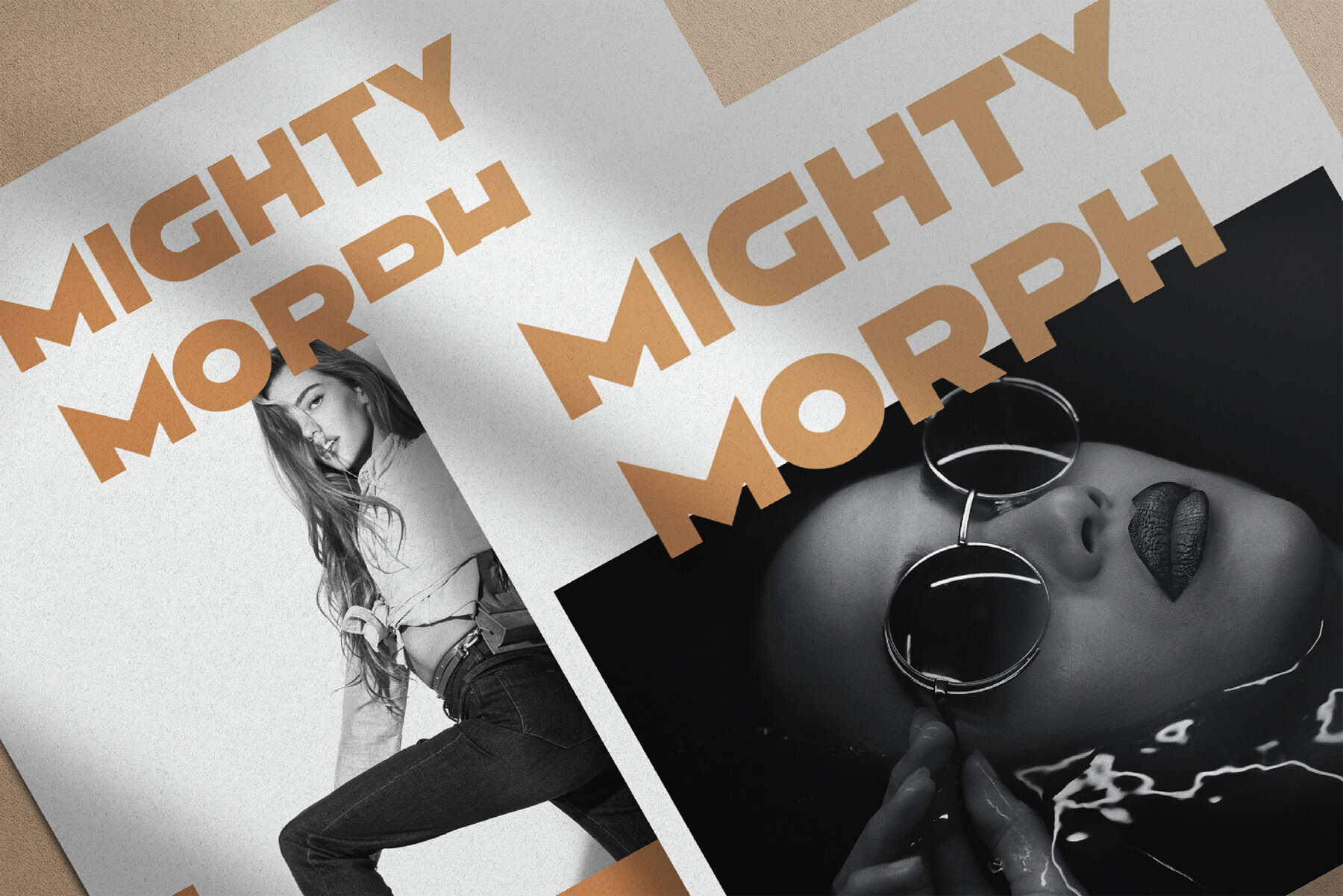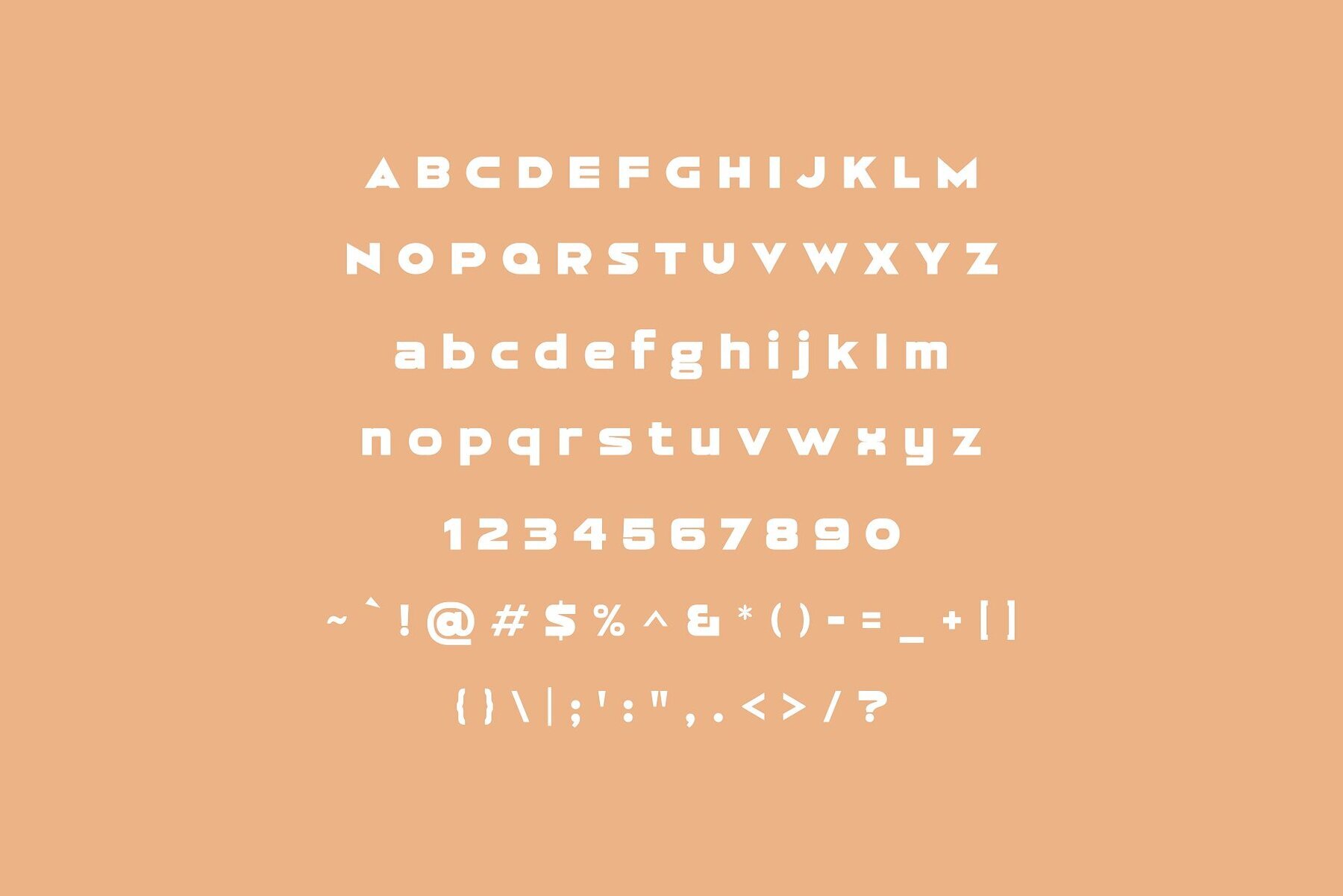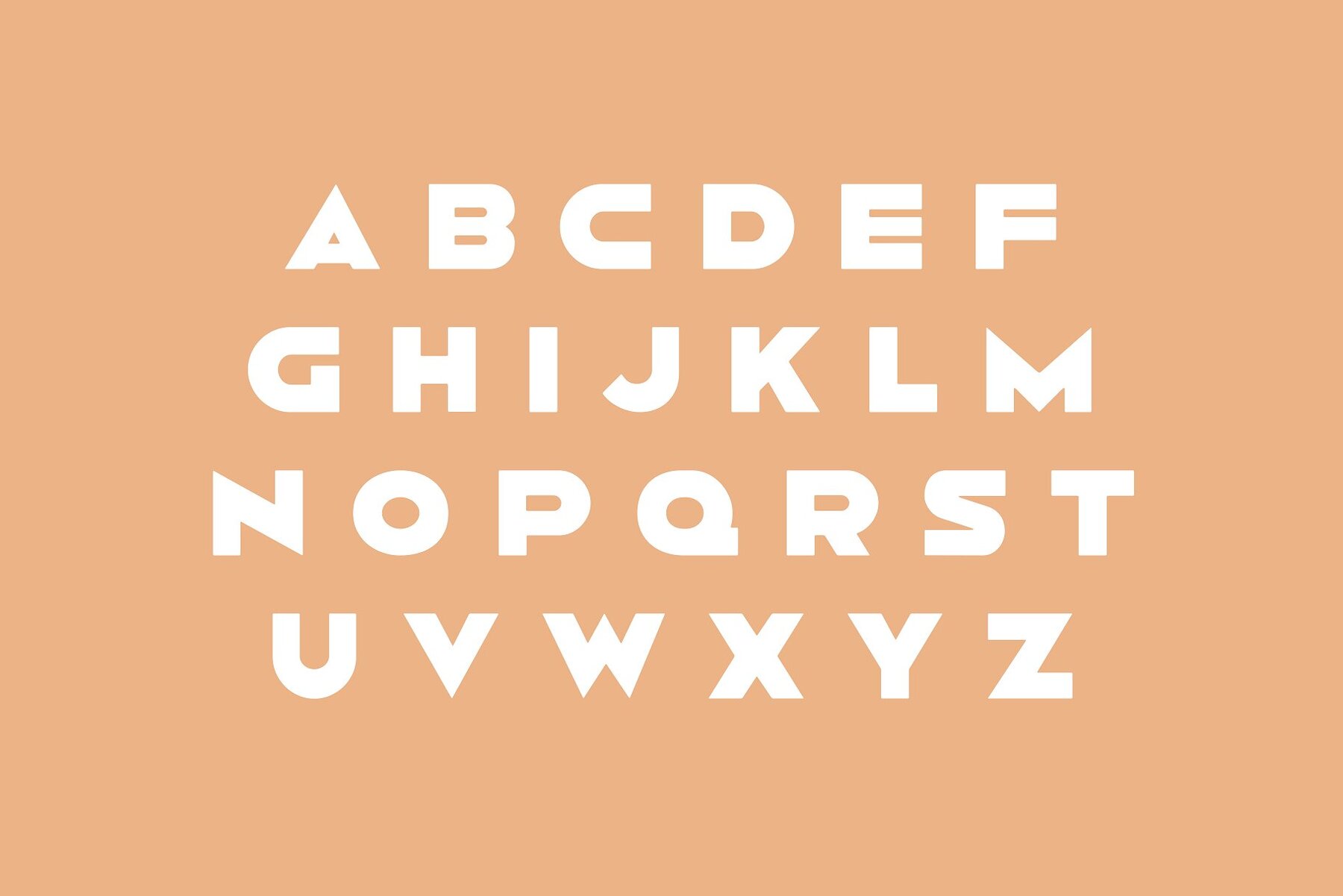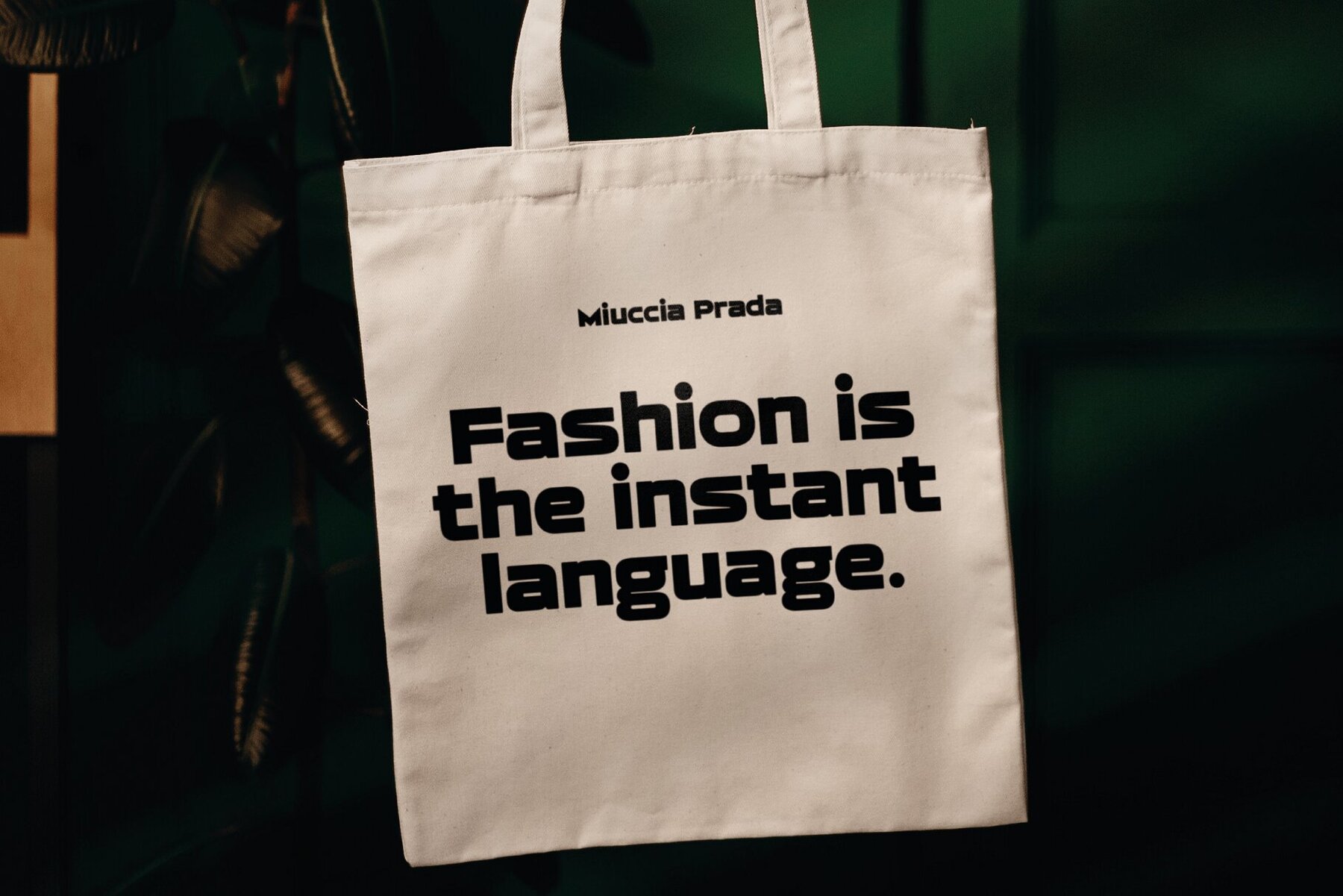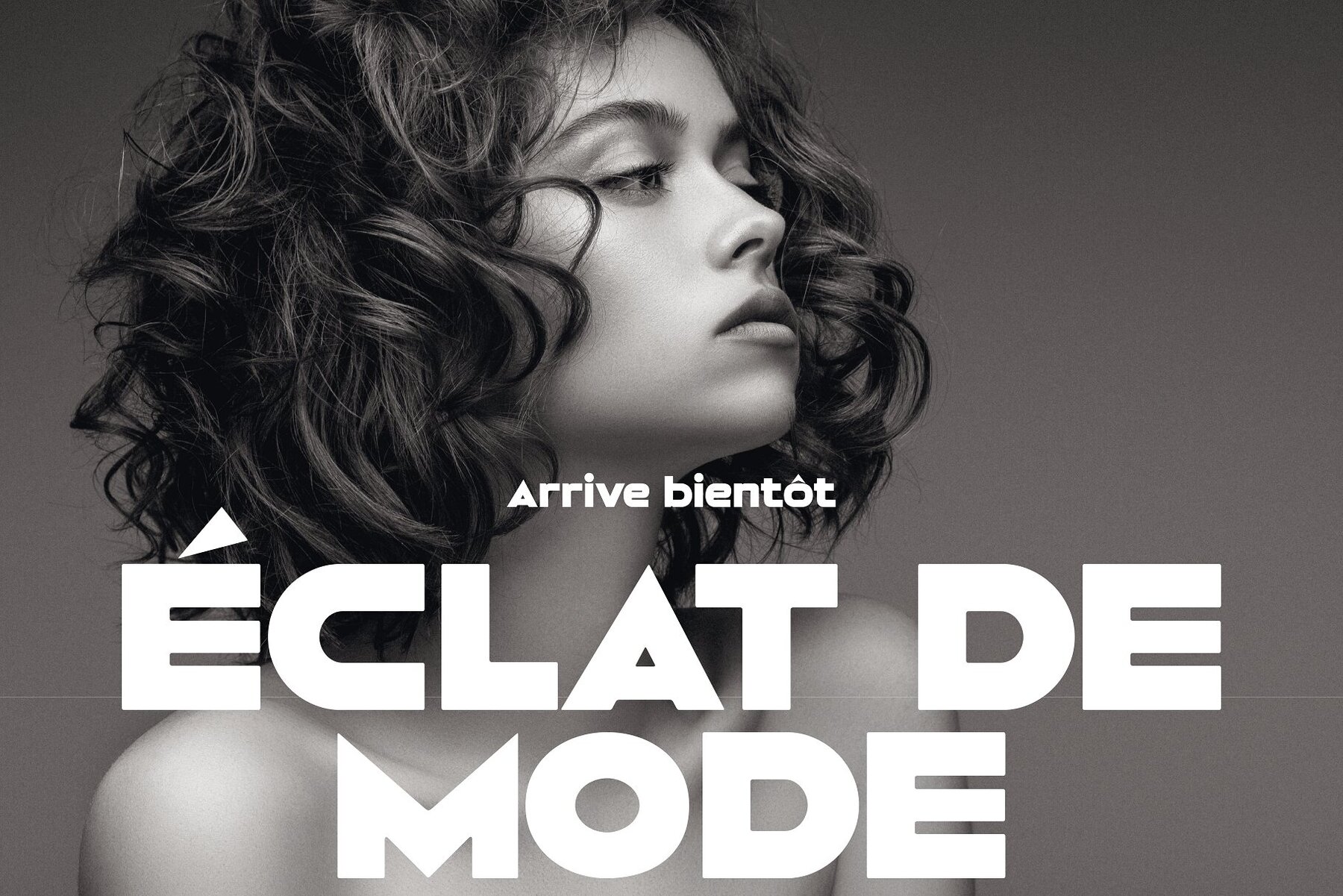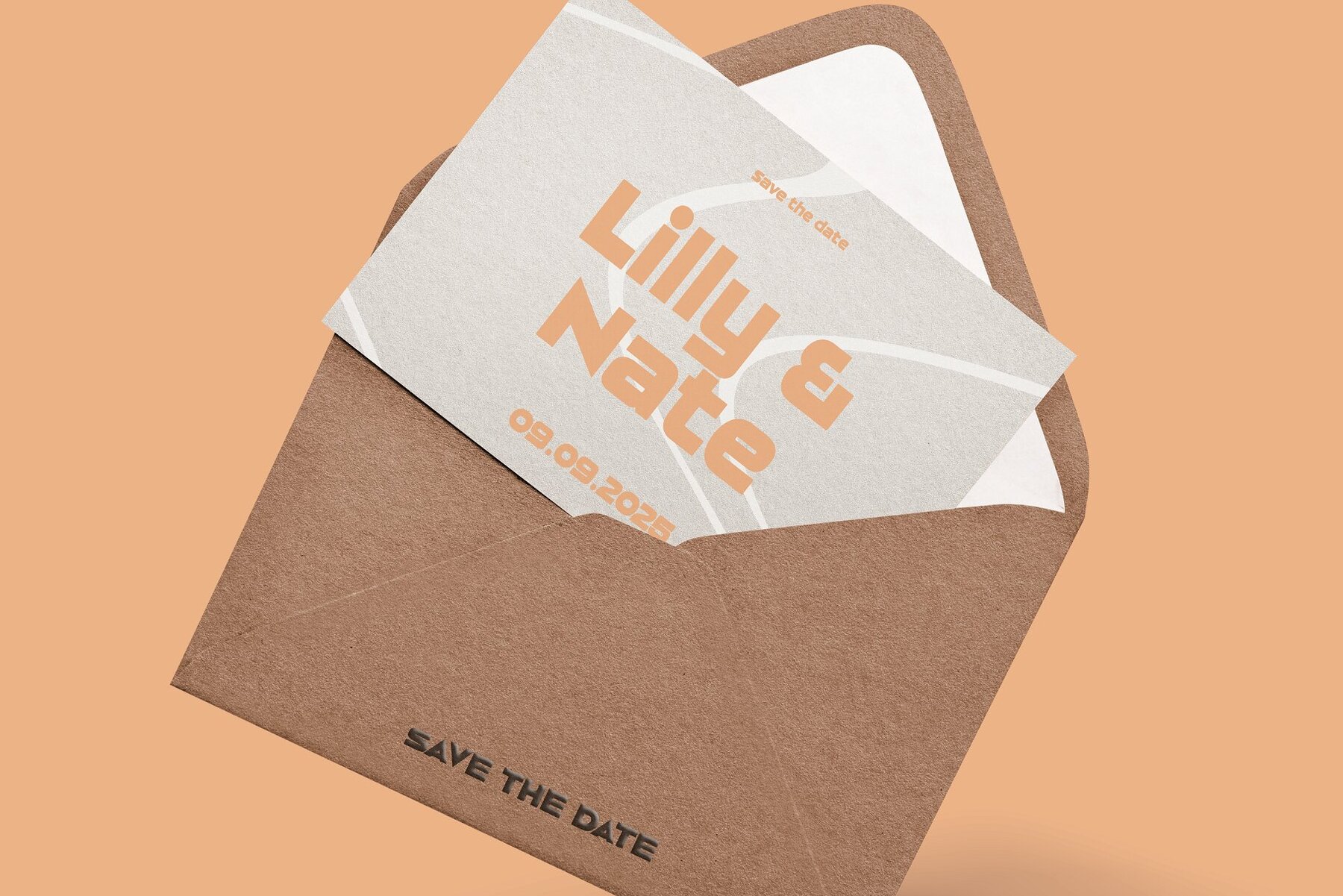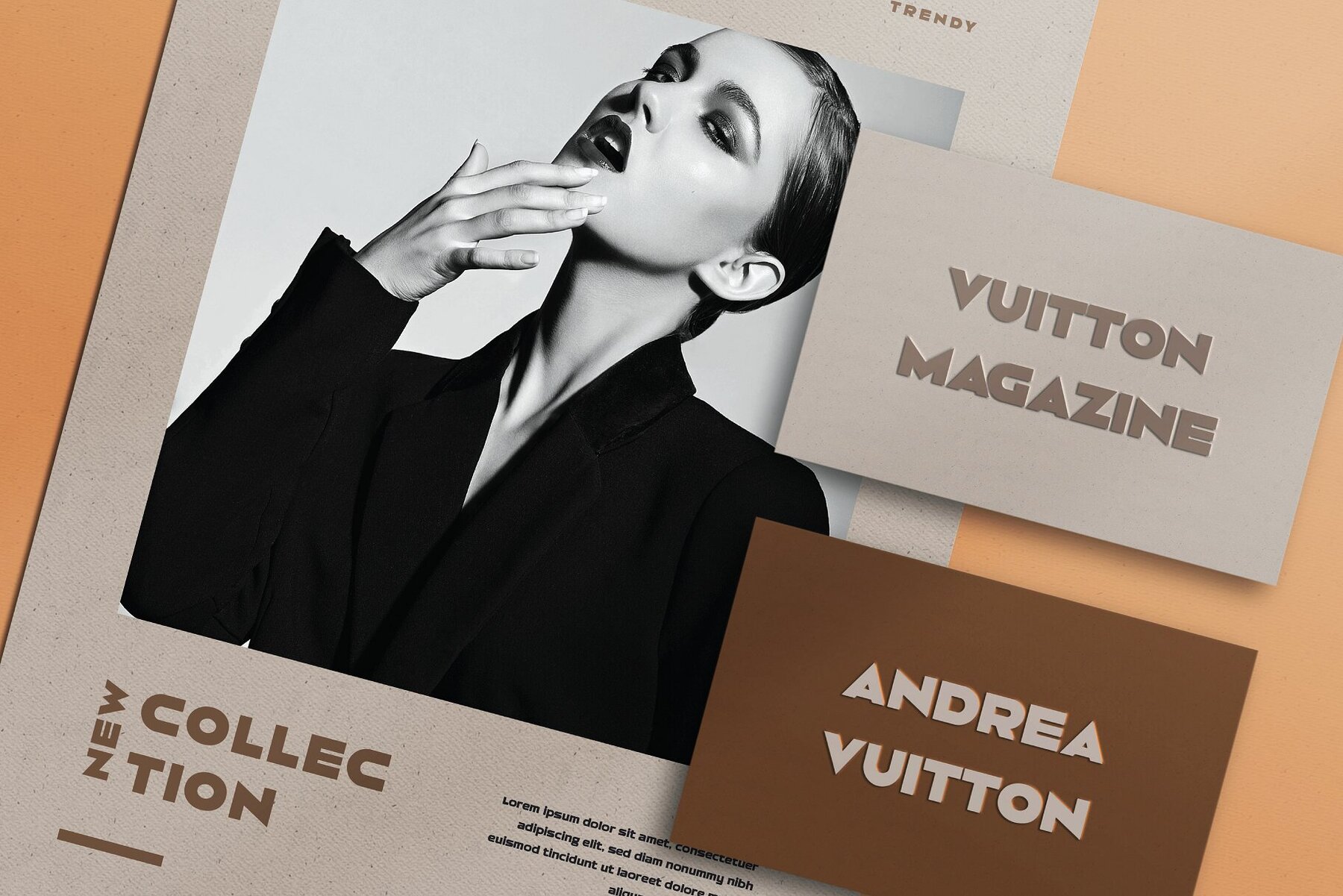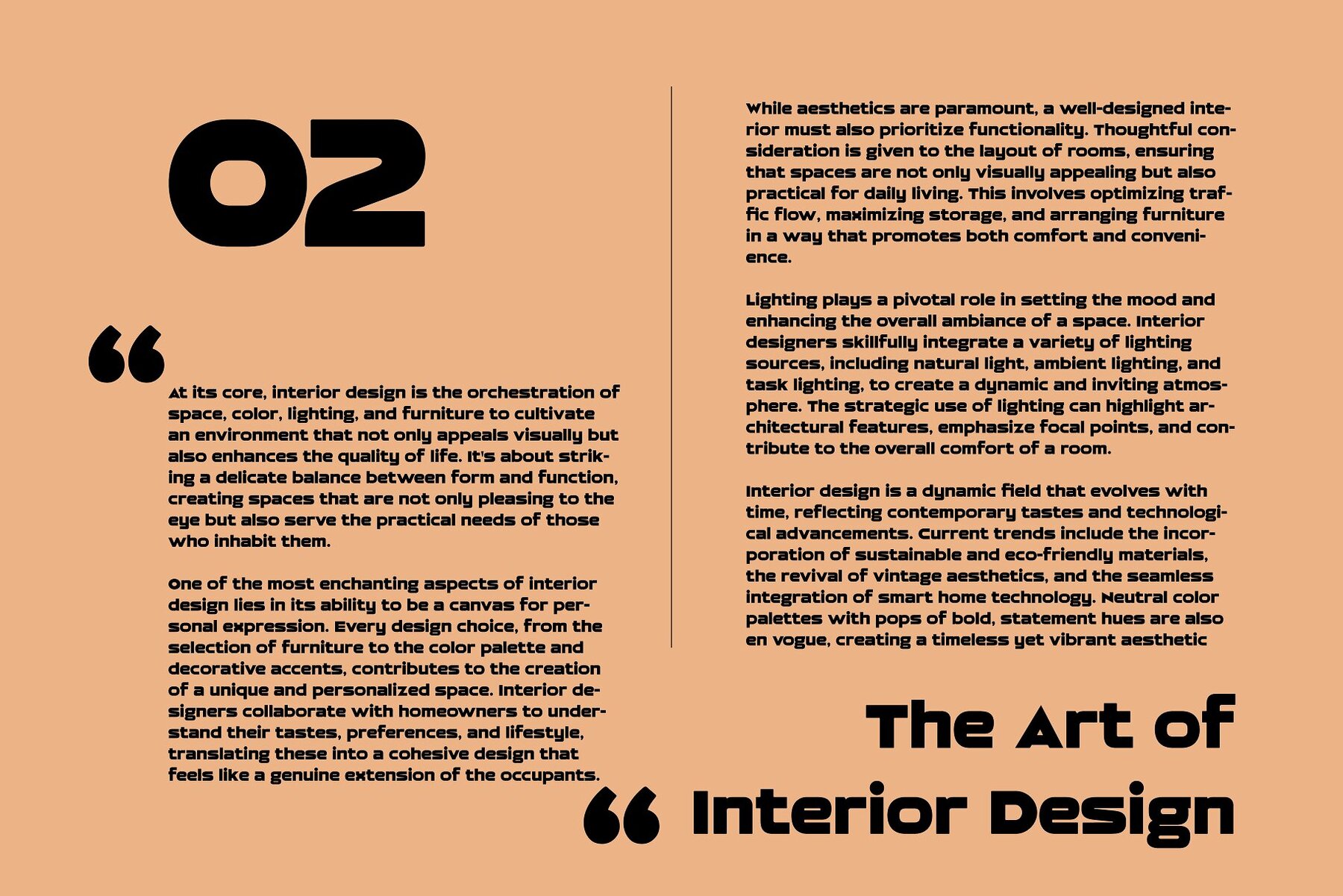
Mighty Morph Font
Mighty Morph Bold
This font is a bold, modern sans-serif typeface defined by its geometric construction and heavy weight. It's designed for high impact and is well-suited for headlines and display purposes. The font's character is marked by strict lines, right angles, and a lack of embellishments, which make it versatile for various design applications while providing strong, readable text.